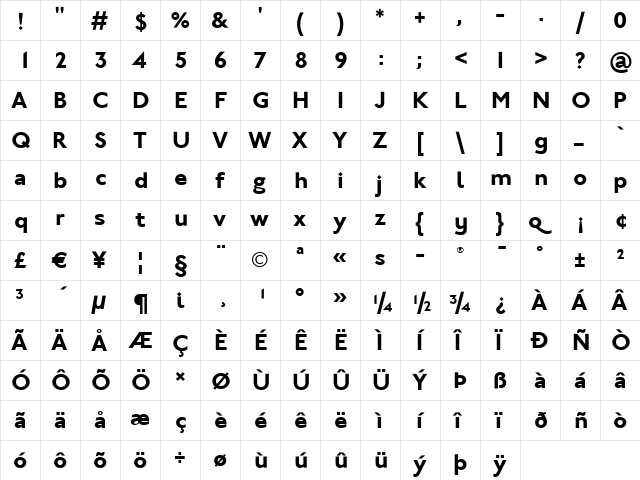
Johnston ITC Bold Font Preview
Johnston ITC Bold
Design Context for Johnston ITC Typeface
Johnston ITC offers clean, dependable letterforms without strong stylistic allegiance, making it a practical choice for designers who need flexibility. Its bold stroke weight gives it real presence on the page.